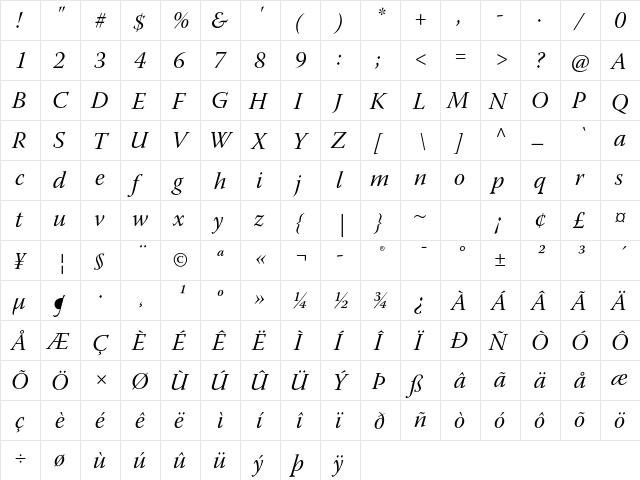
Warnock Pro Italic Subhead Font Preview
Warnock Pro Italic Subhead
Warnock Pro Italic Subhead Font Details
| Style | Italic Subhead |
| Designer | Robert Slimbach |
Design Context for Warnock Pro Typeface
Warnock Pro offers clean, dependable letterforms without strong stylistic allegiance, making it a practical choice for designers who need flexibility. Its italic angle brings a sense of urgency and motion to the letterforms.